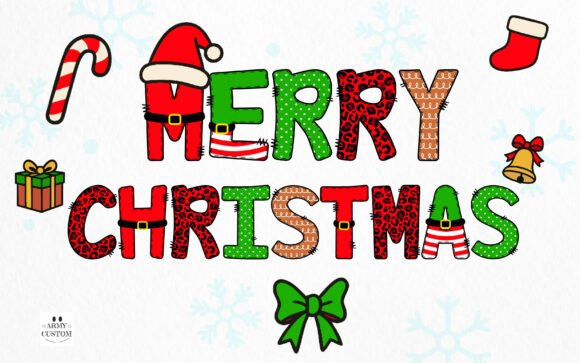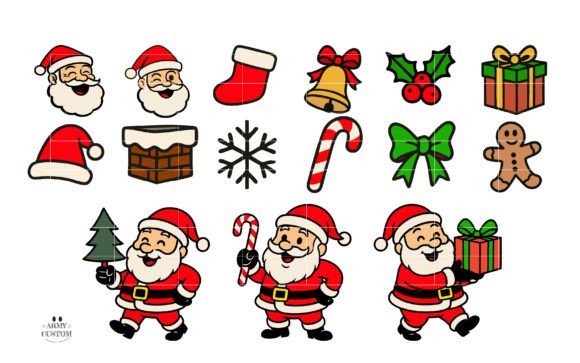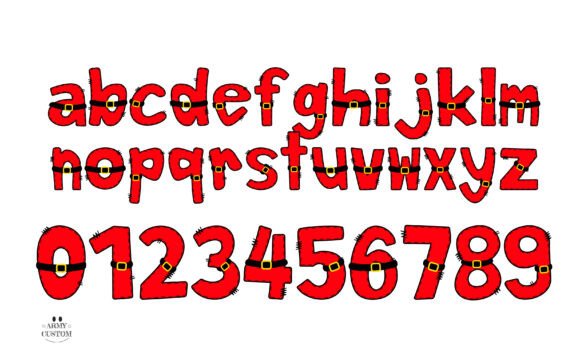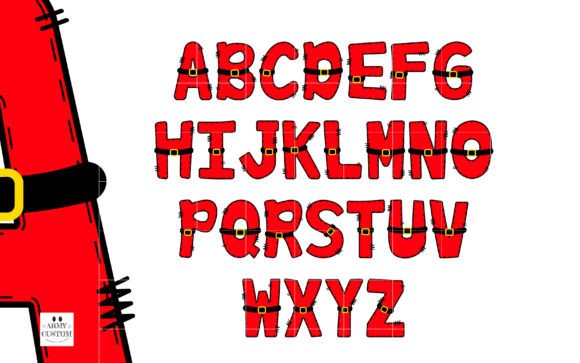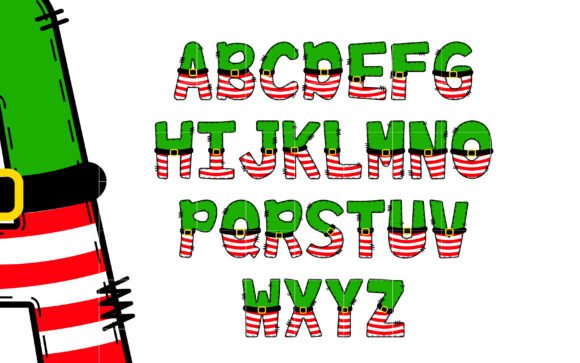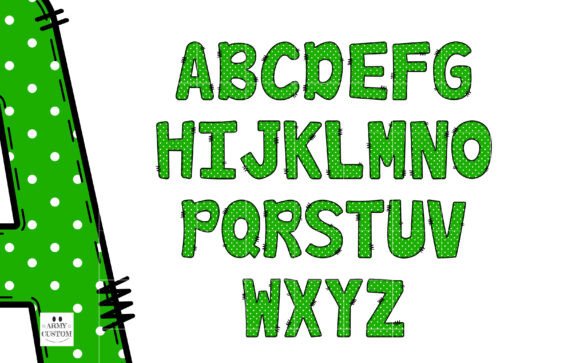
Get Ready to Deck the Halls with the Christmas Bundle Font
There’s something magical about the holiday season, and as a designer, you know that the right font can make all the difference in capturing the spirit of the moment. Imagine you’re sipping hot cocoa, surrounded by twinkling lights, and suddenly, you’re inspired to create a festive holiday design. That’s when the Christmas Bundle Font comes to the rescue, infusing your project with a playful, whimsical charm.
With the Christmas Bundle Font, you’ll have access to a delightful collection of five styles, each one inspired by the mischievous antics of Santa’s helpers. From the jolly old man himself to his trusty reindeer, elf, and snowman friends, every letter is a joyous celebration of the holiday season. This charming font is a must-have for any designer looking to add a dash of merriment to their holiday designs, and with its compatibility with cutting machines and select software, the possibilities are endless.
Christmas Bundle Font Key Features
- Font Style: A festive and fun font bundle, perfect for holiday projects and designs.
- Character Count: Includes a wide range of characters, including uppercase and lowercase letters, numbers, and punctuation.
- Unique Characteristics: Features a bold, playful, and modern design, with intricate details and ornaments.
Designer Review: Christmas Bundle Font
Overall, I think the Christmas Bundle Font is a nice addition to any holiday design project. Here are some of its strengths:
- ✨ The font is versatile and can be used in various Christmas-themed projects, from greeting cards to posters.
- ✨ The font includes a range of festive icons and graphics that can be easily integrated into your designs.
- ✨ The font is well-suited for both digital and print designs, making it a great choice for a variety of projects.
- ⚠️ The font is not suitable for projects that require a more minimalist or subtle approach, as it can be quite ornate and over-the-top.
- ⚠️ Some of the graphics and icons may not be compatible with all design software, which can be a bit frustrating.
Overall, I would say that the Christmas Bundle Font is a solid choice for anyone looking to add some festive flair to their designs. While it may have some limitations, it’s well-suited for most holiday projects and can be a fun addition to your design arsenal.
Tips for Getting the Most Out of the Christmas Bundle Font
Experiment with different font combinations to create unique and festive designs.
Use the font in conjunction with other holiday-themed elements, such as snowflakes or holly.
Consider using the font in a bold or italic style to add emphasis and visual interest.
The Christmas Bundle Font is ideal for creating holiday-themed designs, such as:
Christmas cards and invitations
Holiday party invitations
Social media graphics
Advertising and marketing materials